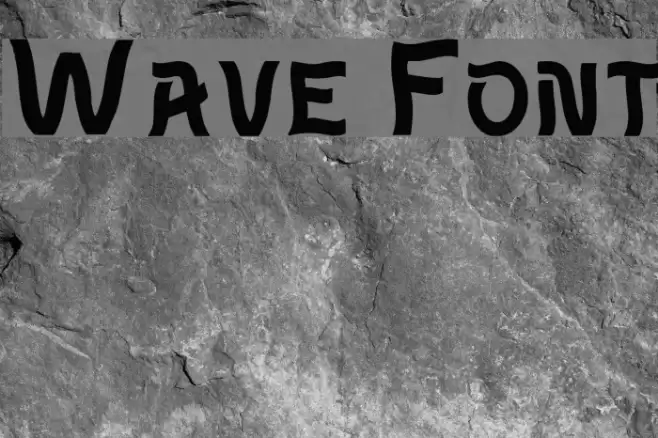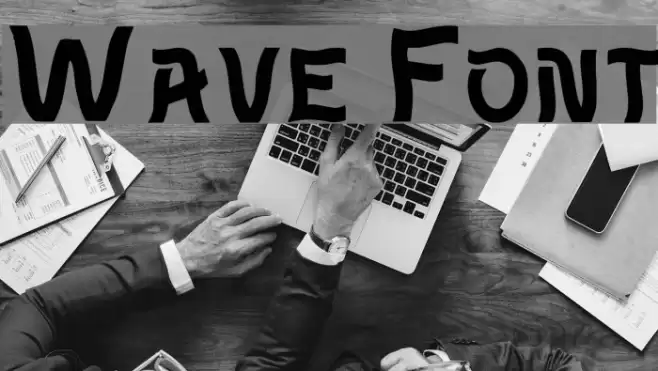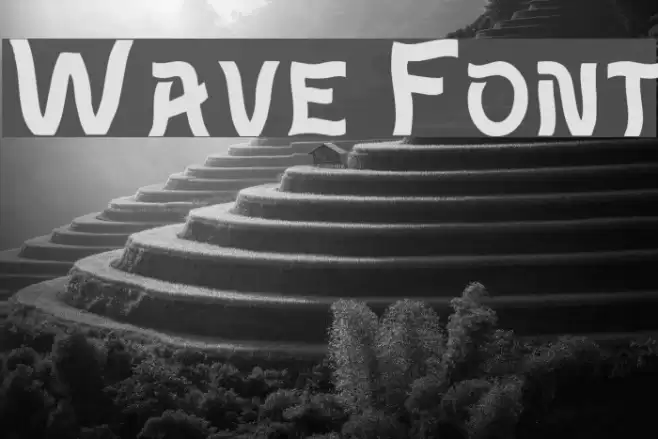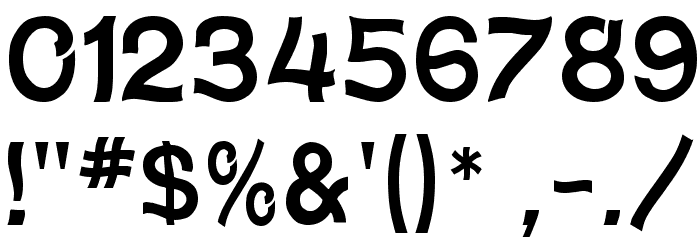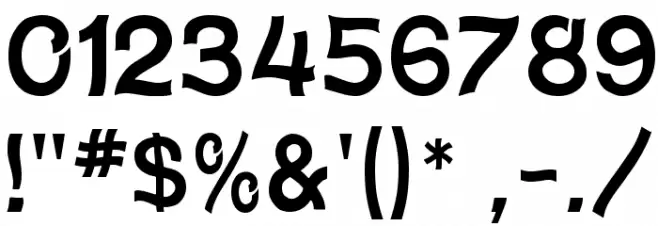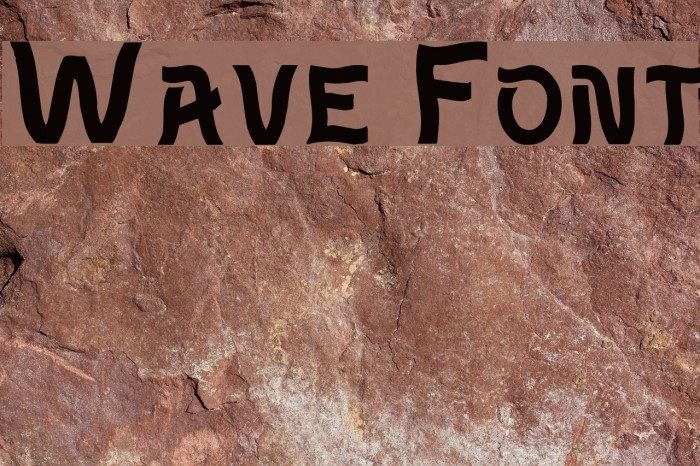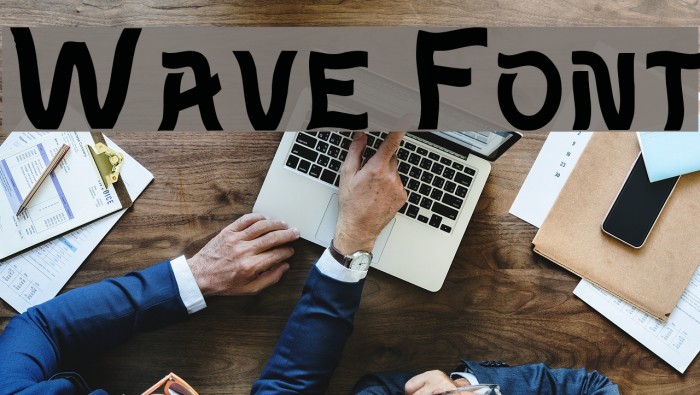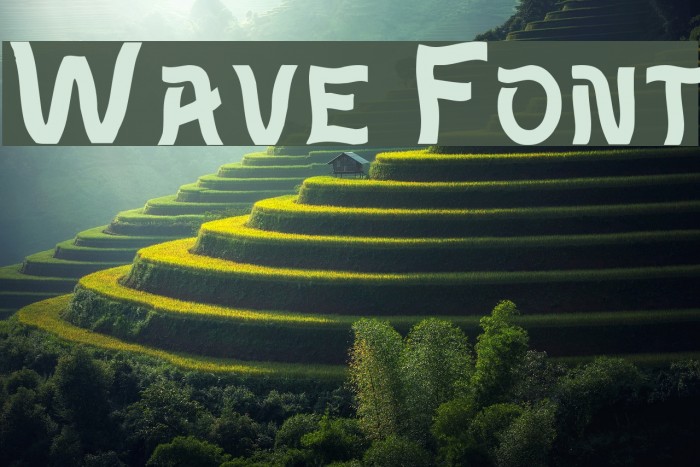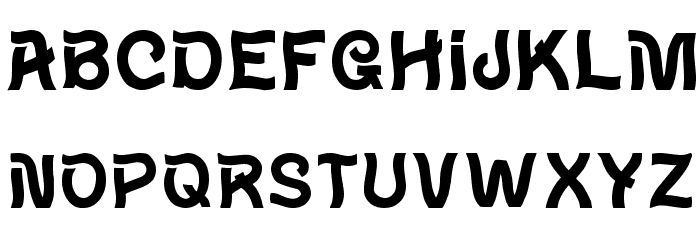
Wave Font
Wave Description
This font features a playful and dynamic style, characterized by its wavy and irregular strokes that give it a lively appearance. The letters have a bold presence with a slightly uneven baseline, adding to its whimsical charm. The uppercase and lowercase letters maintain a consistent style, with each character exhibiting unique curves and angles. The numerals and special characters follow the same design principles, ensuring a cohesive look across all glyphs. This font's distinctiveness makes it stand out, ideal for projects that require a touch of creativity and fun.
A playful, wavy font with bold, irregular strokes and a whimsical style from Uncategorized fonts.
- Proposed Projects: Perfect for children's books, playful branding, party invitations, and creative posters.